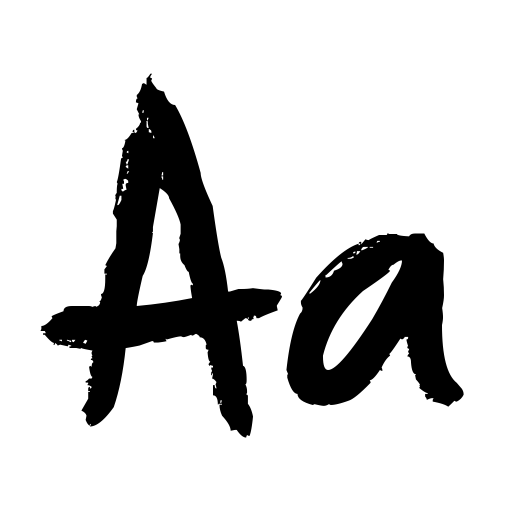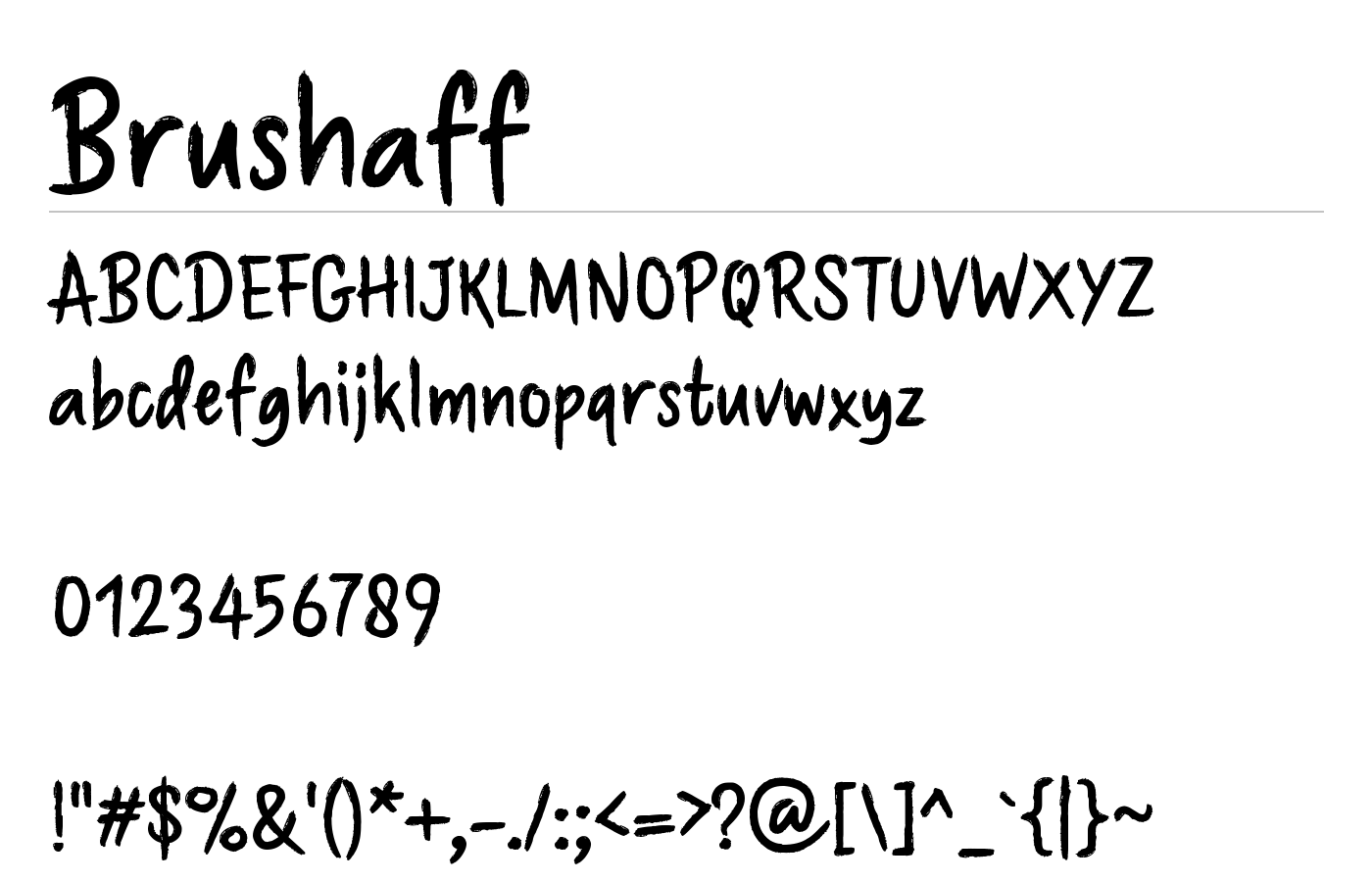
Brushaff is a lively and informal handwritten brush font characterized by its textured, uneven strokes that mimic natural brush painting. It features a casual, friendly feel with medium weight and slightly condensed letterforms, making it perfect for creative projects that seek an authentic, artistic touch. This font works well in logos, posters, packaging, and headlines where a personal, expressive style is desired.
Brushaff Font
About Brushaff Font
| Font family | Brushaff Font |
| Designer | Situjuh Nazara |